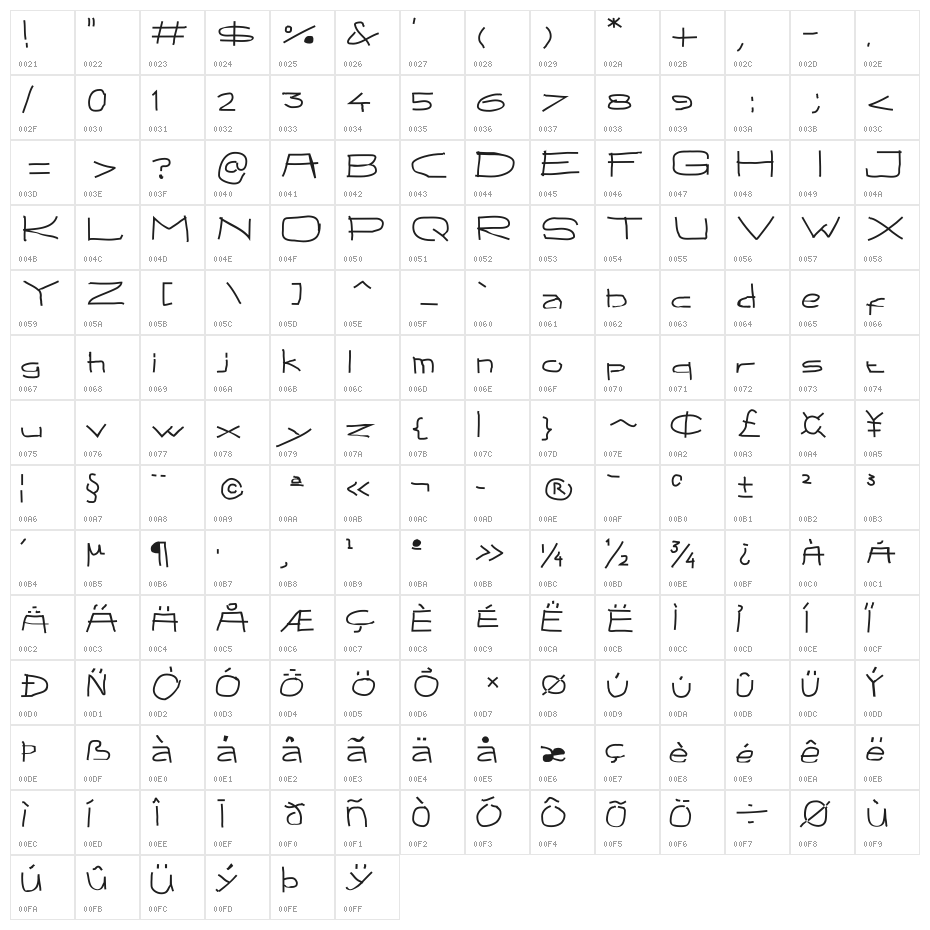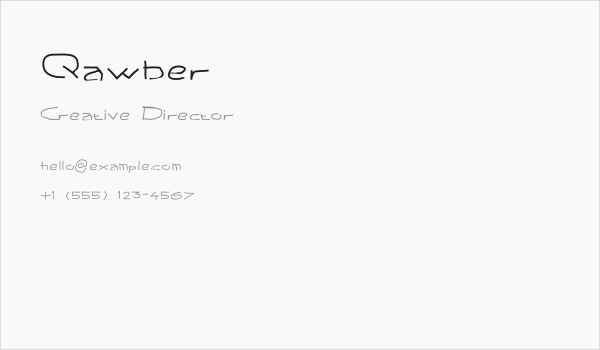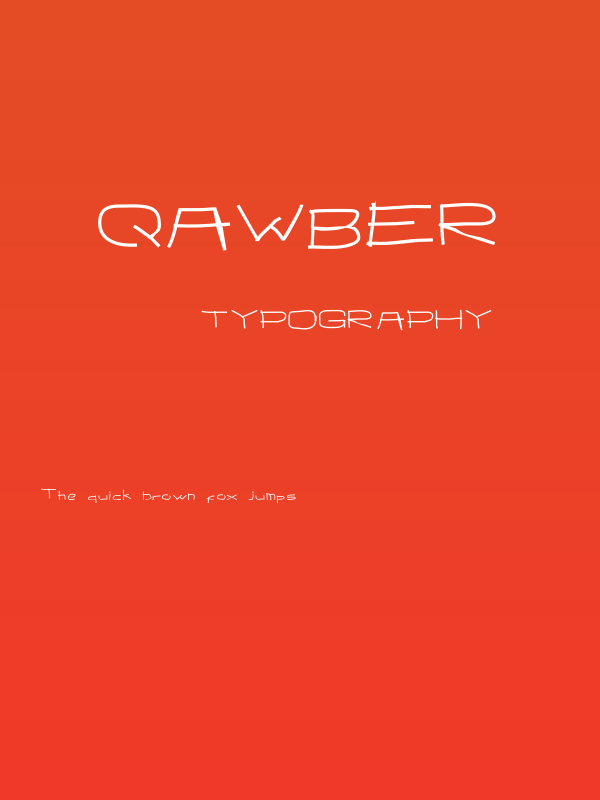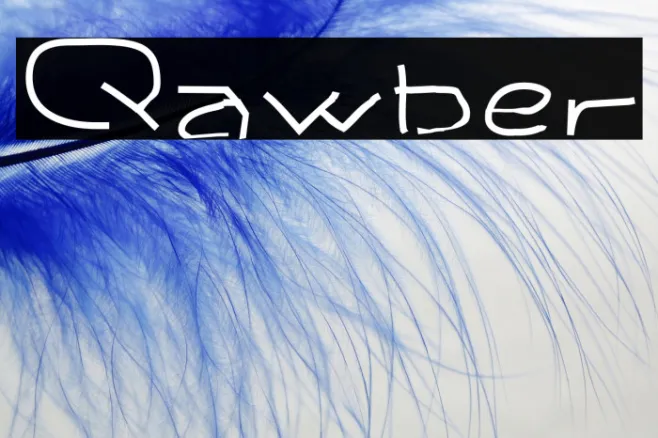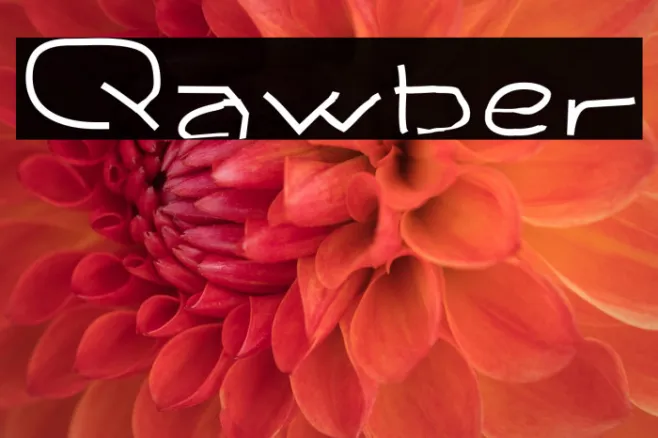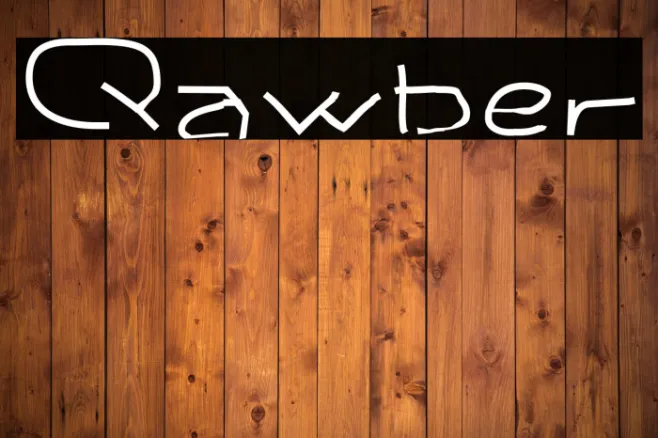
Qawber Font
Qawber Description
This font features a unique, hand-drawn style with irregular strokes and a playful, informal appearance. The uppercase letters are slightly angular, giving them a quirky and distinctive look. The lowercase letters maintain a consistent style, with some characters like 'e' and 'g' having a more rounded form. Numbers and special characters follow the same playful design, making them stand out with their uneven lines and creative shapes. This font's overall aesthetic is casual and artistic, suitable for projects that require a personal touch.
| Overall Style | Casual, Artistic |